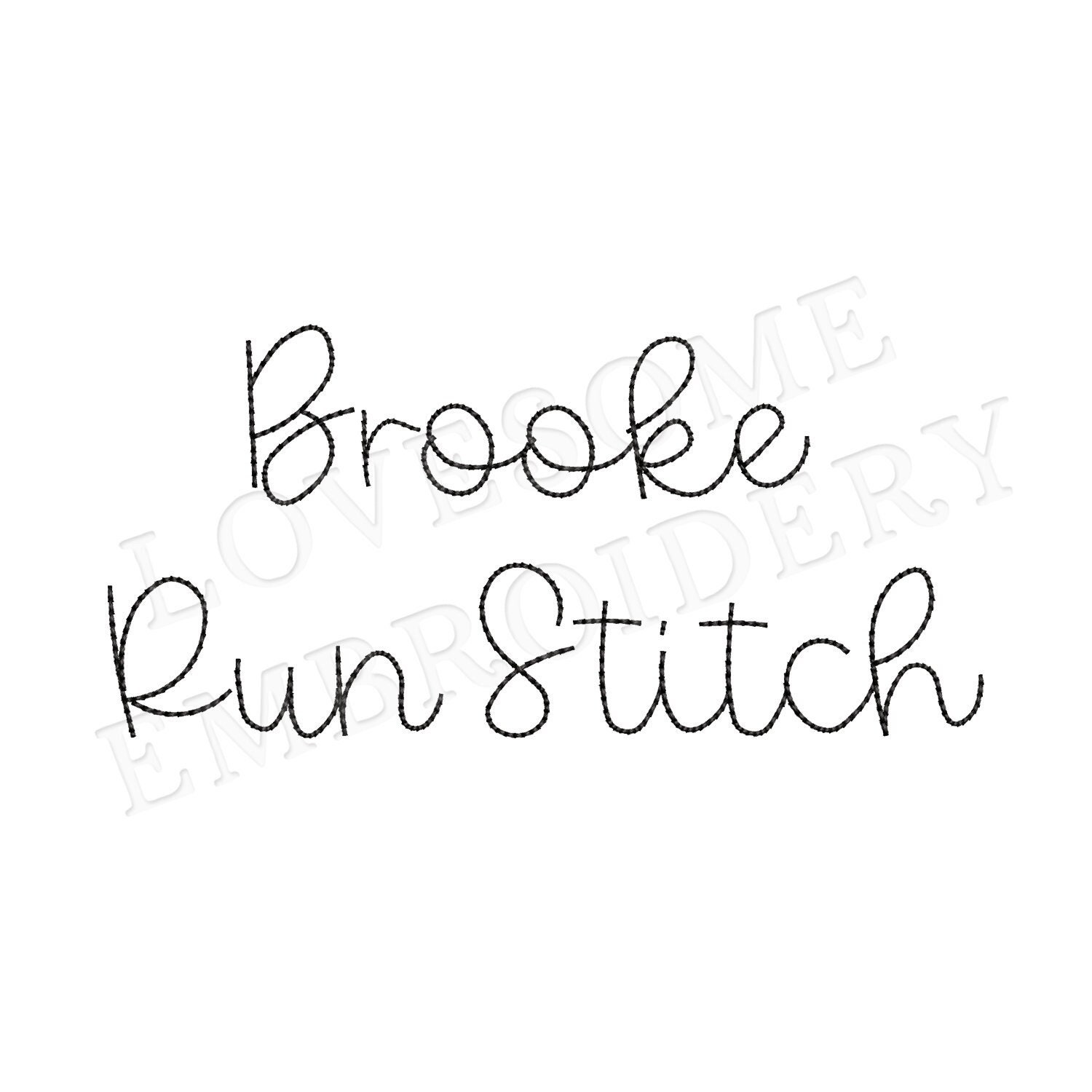
Brooke Script 2inch Bean Stitch Font A-Z, Cursive Run Stitch Font, Machine Embroidery Digital Download | Lovesome Embroidery
This listing features a machine embroidery font set which includes bean stitch embroidery files of 26 uppercase and 26 lowercase letters in 2inch size. (For the whole set, pls see the listing images.)